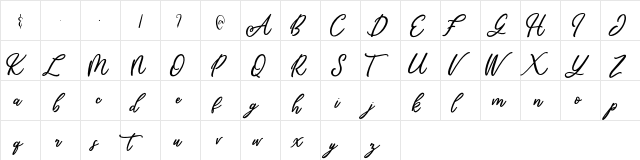
Mandymores Regular
| Foundry | thirtypath |
| Designer | thirtypath |
Design Context for Mandymores Typeface
Mandymores takes a measured approach to typography — its balanced proportions and neutral character make it a reliable workhorse for both digital and print work.